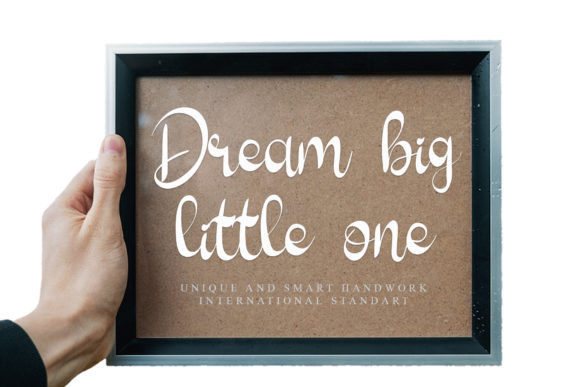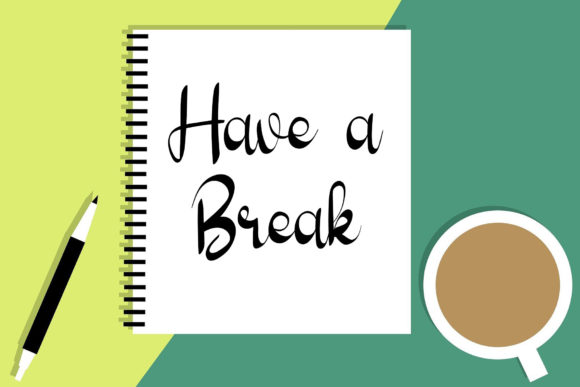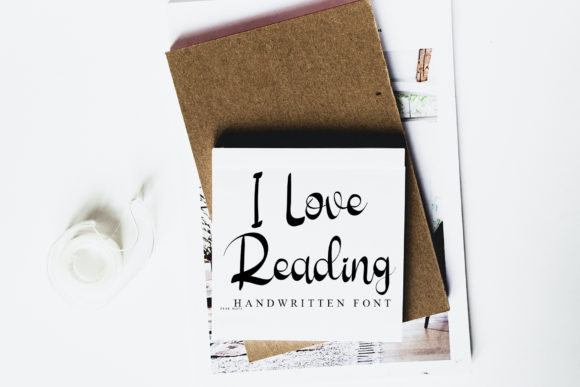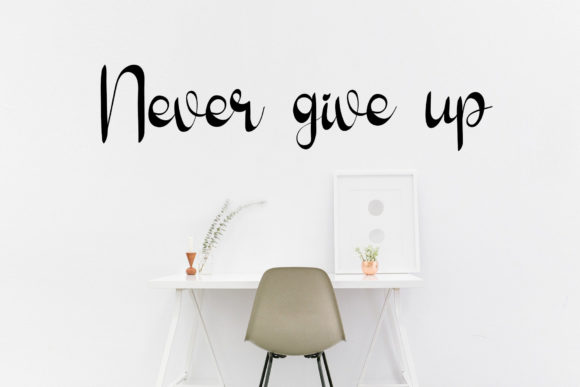
Retro Style Font
About Retro Style Font
Retro Style is a round lettered script font, perfect for use on invitation cards, greeting cards, party events, billboards, logos, business cards and any other design that requires a handwritten touch. This font features varied baselines, fine lines, beautiful glyphs and makes your ideas look exquisite and complementary to your work.